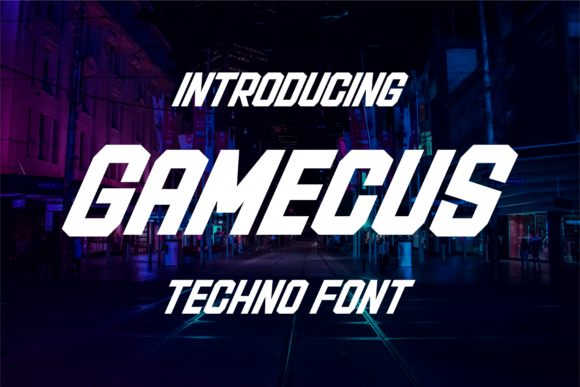
Journey into the realm of the extraordinary with Gamecus Font, a typographic masterpiece that defies convention and ignites the senses. Step into a world where imagination knows no bounds, where letters dance with energy and charisma, captivating audiences with their unwavering boldness. Prepare to be mesmerized as Gamecus Font transforms your designs into awe-inspiring creations that leave an indelible mark on the hearts and minds of your viewers.
Unleash the power of Gamecus Font, a visual symphony that harmonizes perfectly with the dynamic essence of app design. Its futuristic strokes, reminiscent of a neon-drenched cityscape, illuminate your designs with an otherworldly glow. Allow your creativity to soar as you craft interfaces that pulsate with energy, captivating users with every tap and swipe. Gamecus Font is the ultimate companion for designers seeking to push the boundaries of digital art.
Elevate your designs to new heights with Gamecus Font, a font family that exudes confidence and sophistication. Its bold, commanding presence demands attention, making it the perfect choice for headlines, logos, and other prominent design elements. Watch as your designs take on a life of their own, captivating audiences with their unwavering strength and charisma. Gamecus Font is the embodiment of power and presence, transforming your designs into beacons of brilliance that leave a lasting impression.
With Gamecus Font, experience the limitless possibilities of creative expression. Its versatile nature adapts seamlessly to a wide array of design projects, from sleek and modern to playful and whimsical. Let your imagination run wild as you explore the endless combinations and permutations that await you. Unlock the full potential of your design prowess and create captivating visuals that resonate with your audience on a profound level. Gamecus Font is the ultimate tool for designers seeking to transcend the ordinary and embrace the extraordinary.
Immerse yourself in the boundless realm of creativity with Gamecus Font, a typographic masterpiece that sets your designs ablaze with its fiery spirit. Its meticulously crafted characters ignite passion and evoke emotion, leaving audiences spellbound by their captivating presence. Witness the transformation as ordinary words evolve into extraordinary expressions, imbued with a sense of wonder and awe. Gamecus Font is the spark that ignites the flame of inspiration, propelling your designs to new heights of excellence.